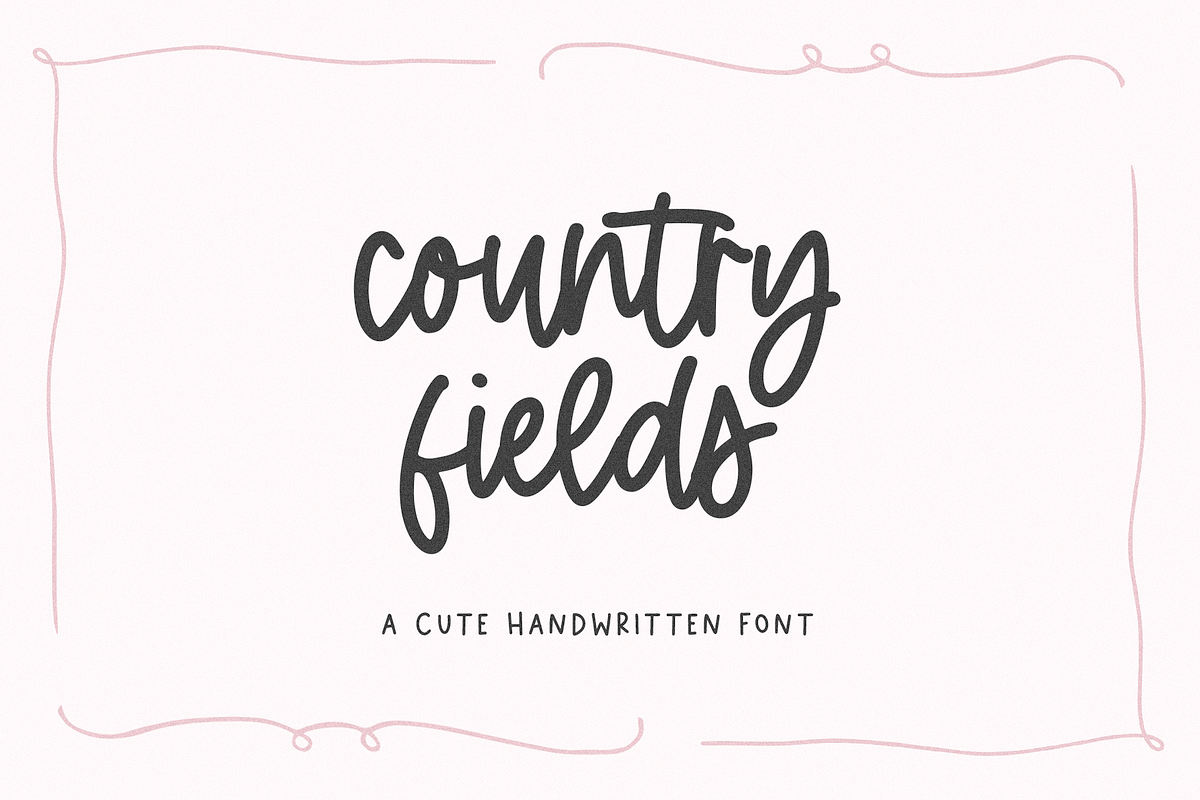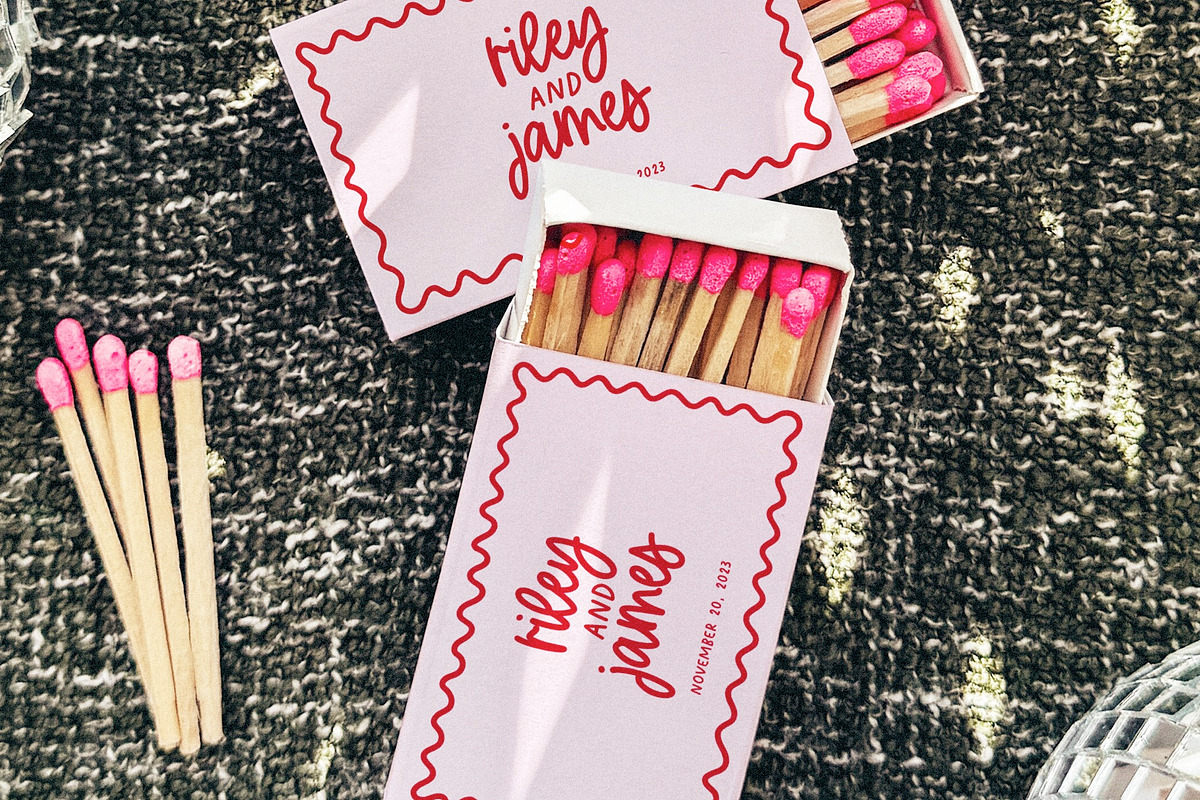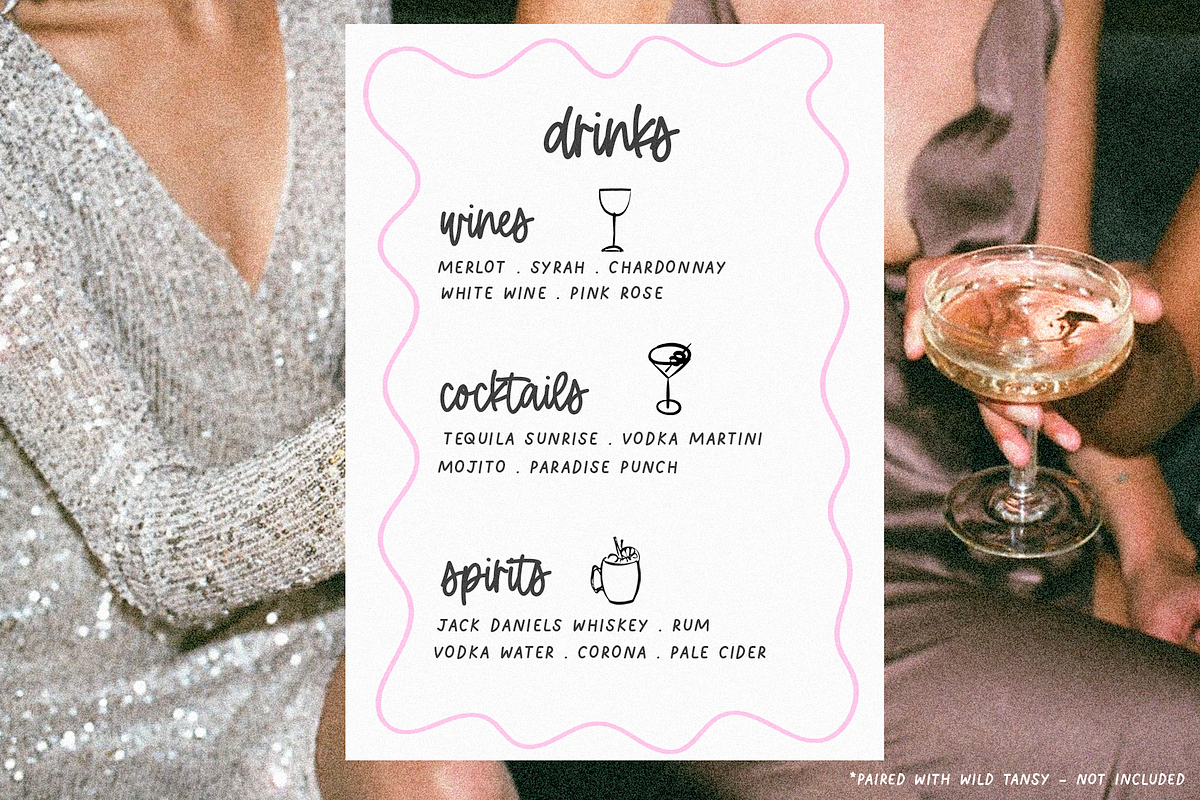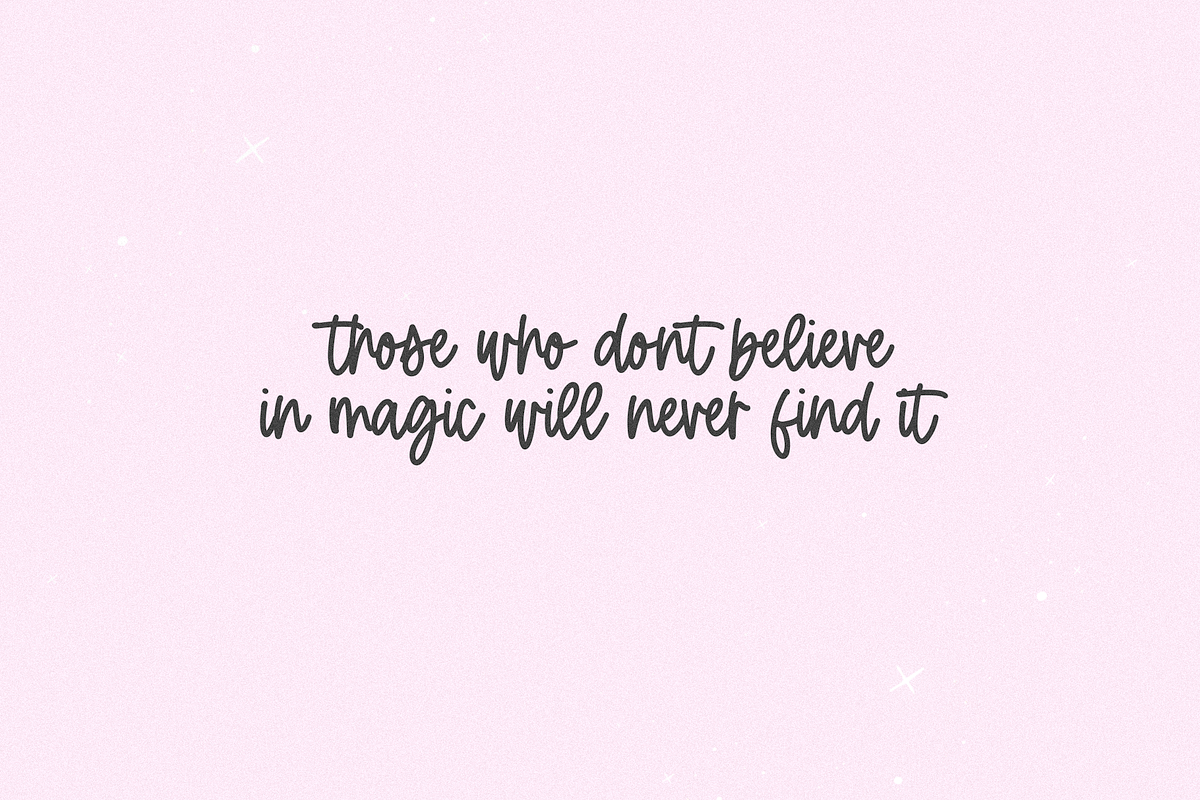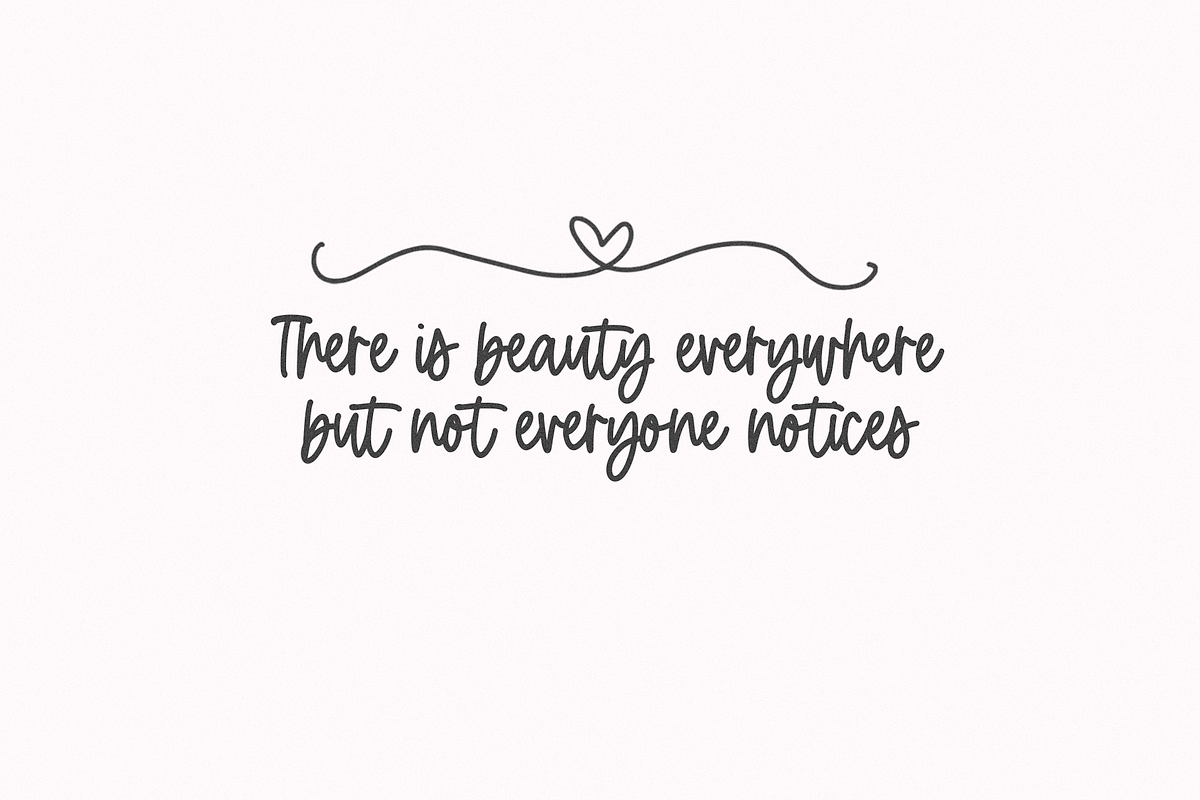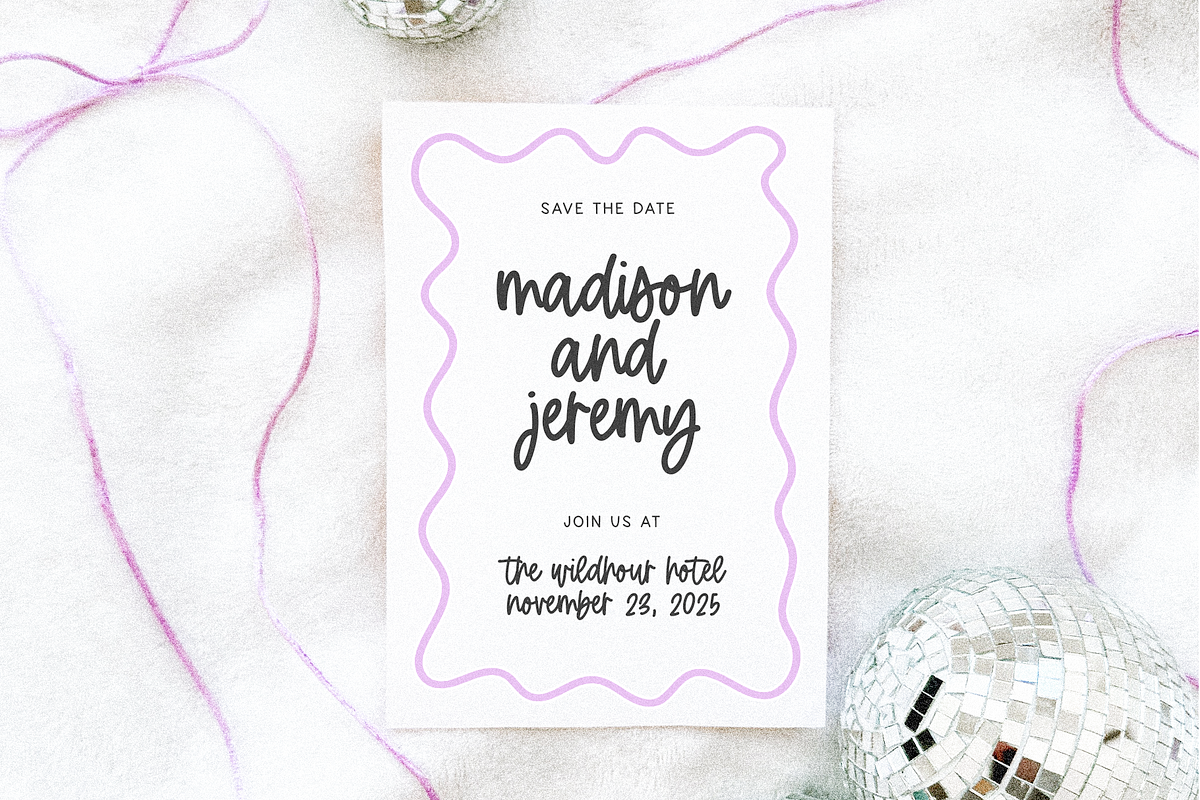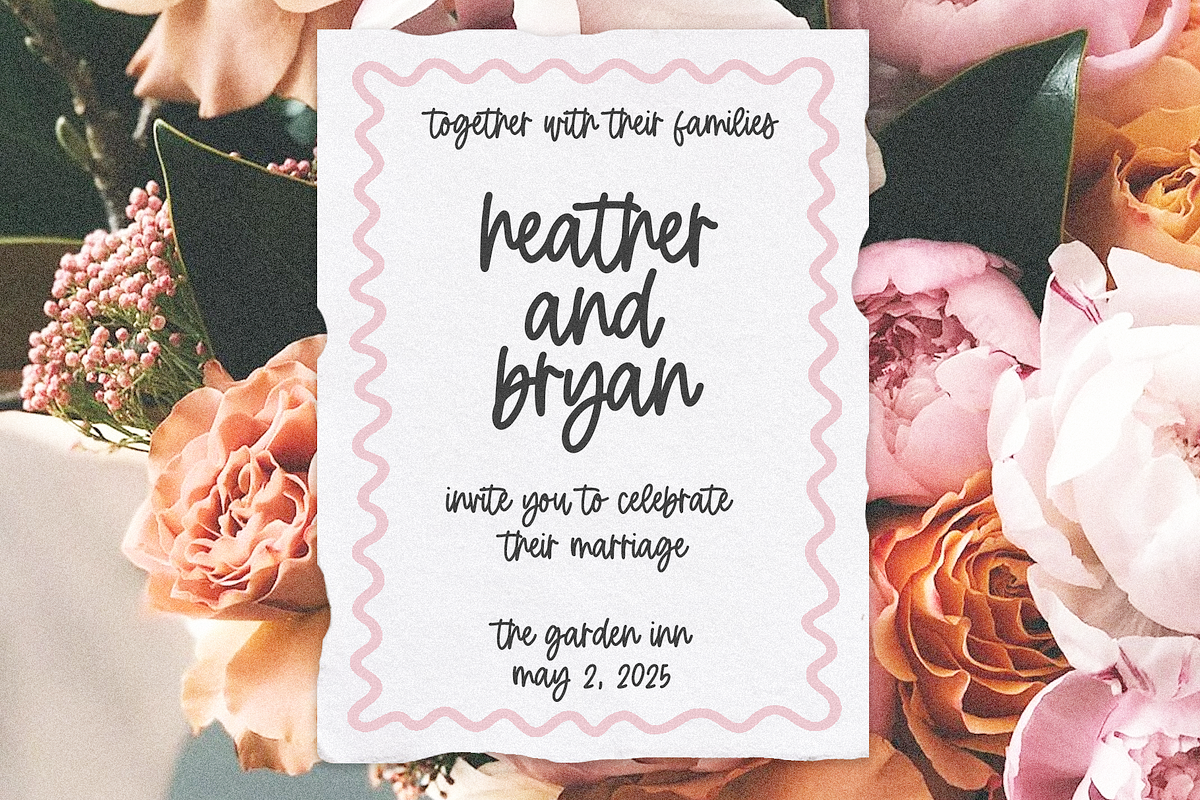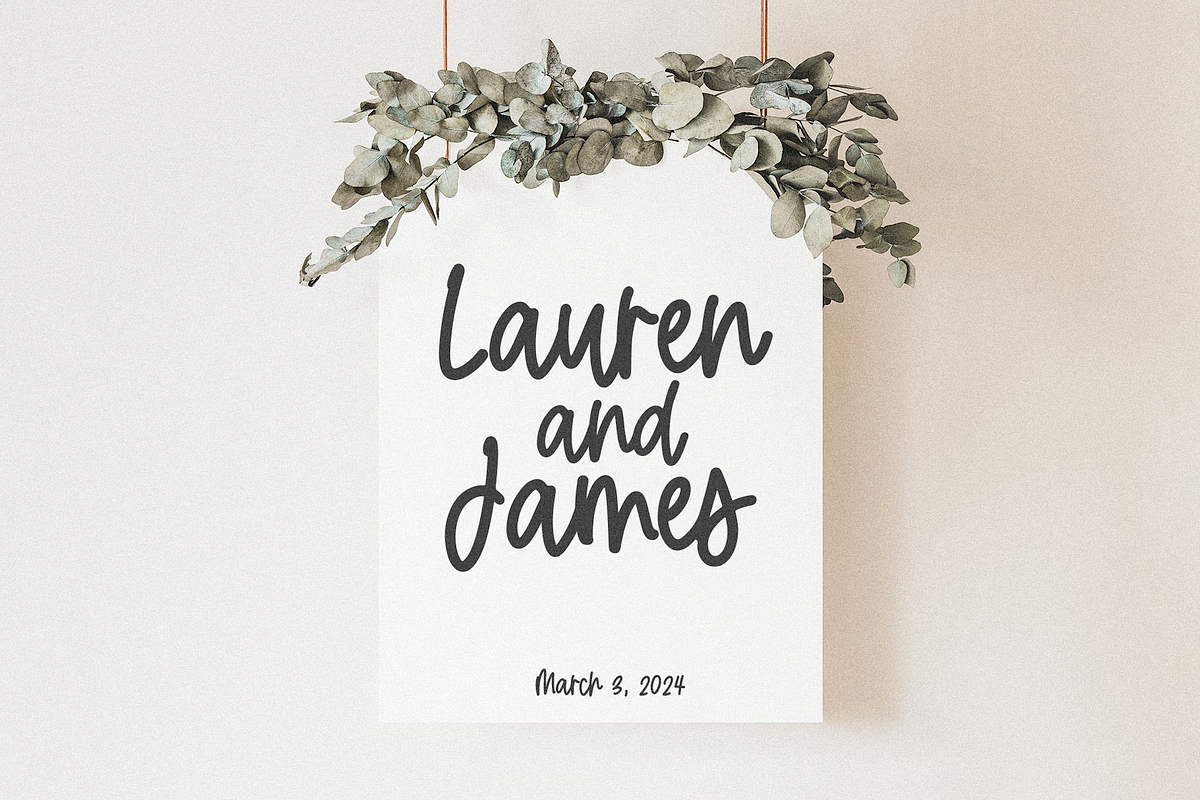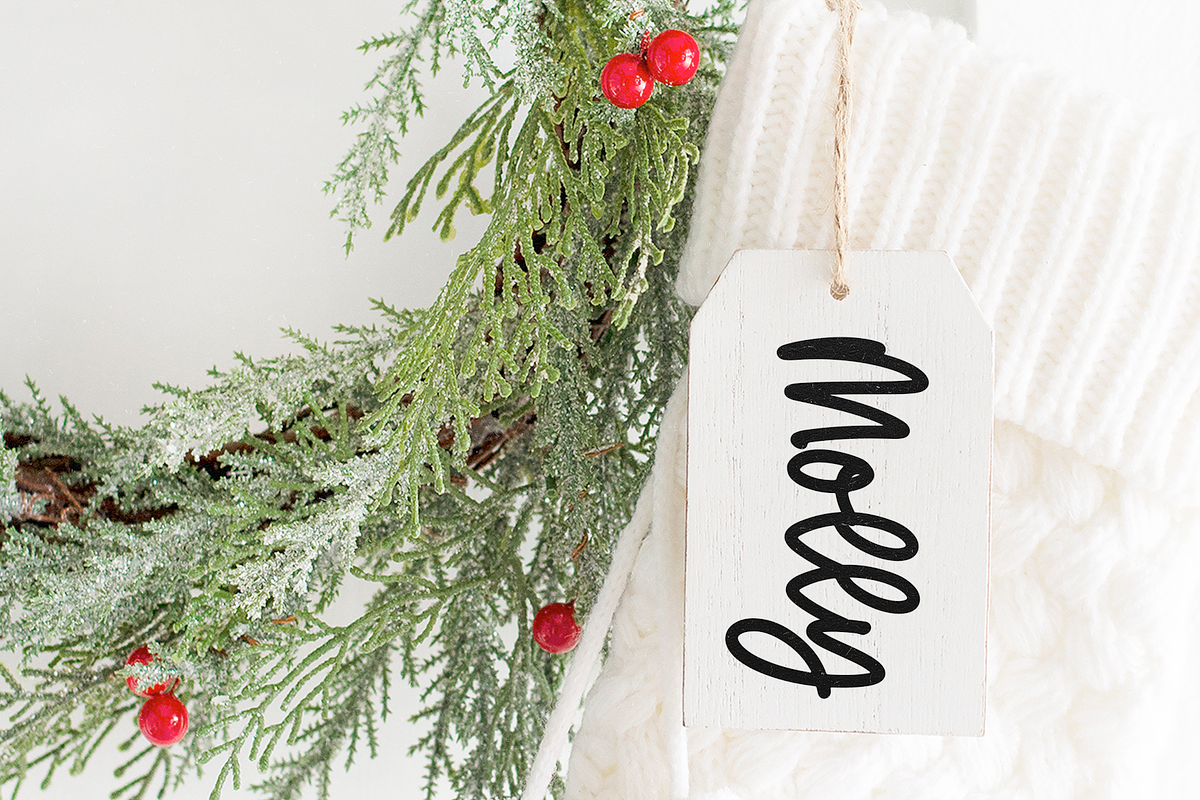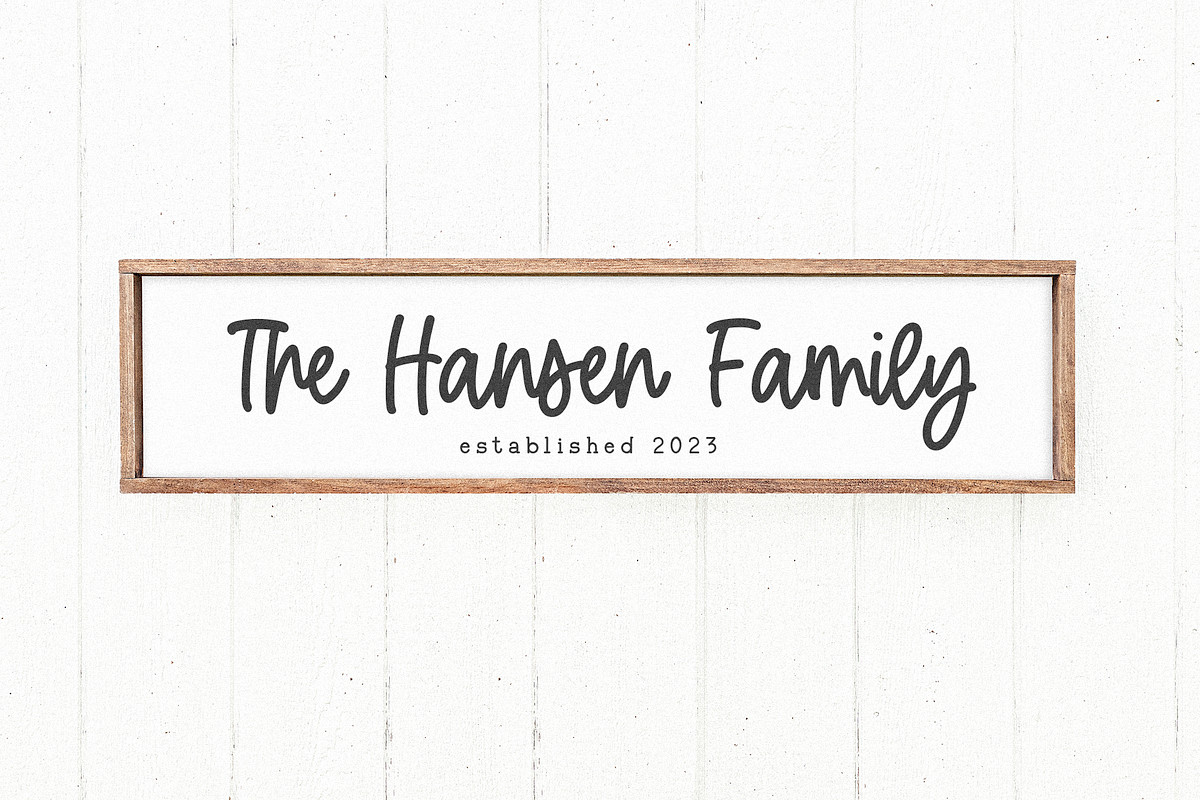
Country Fields | Cute Script Font
Country Fields is a cute handwritten font.
This font is perfect for charming quotes, logos, wedding decor, coquette designs, invitations, farmhouse signs, shirts, stickers and more!